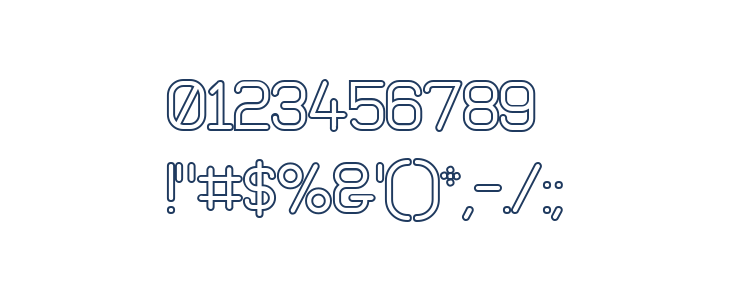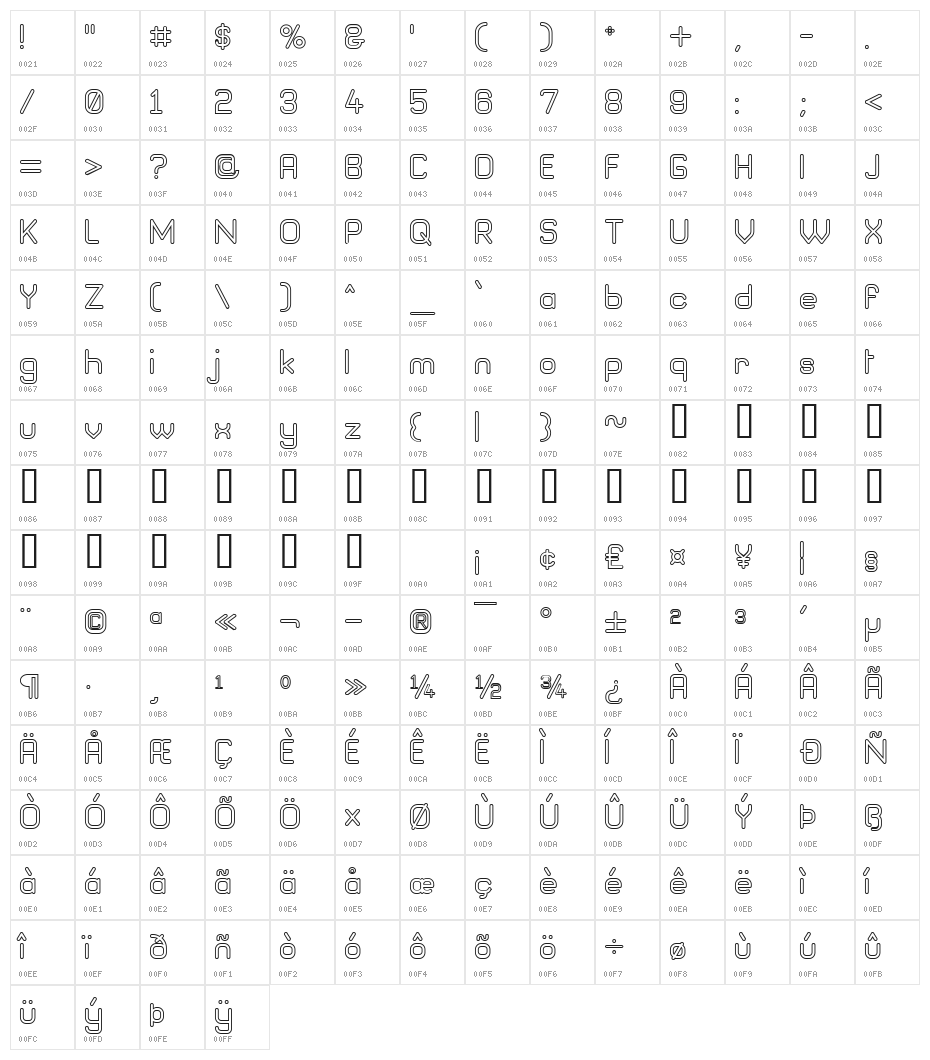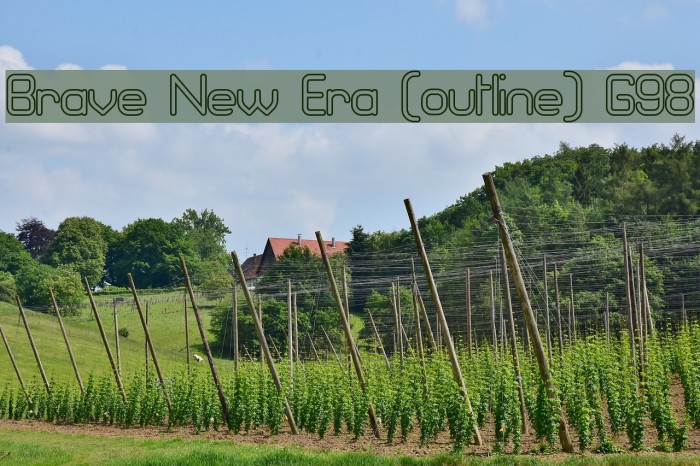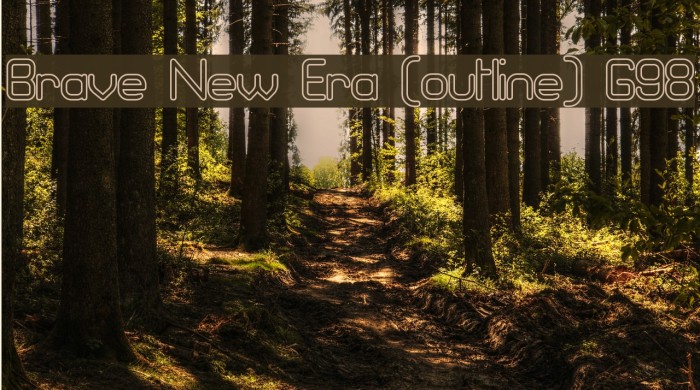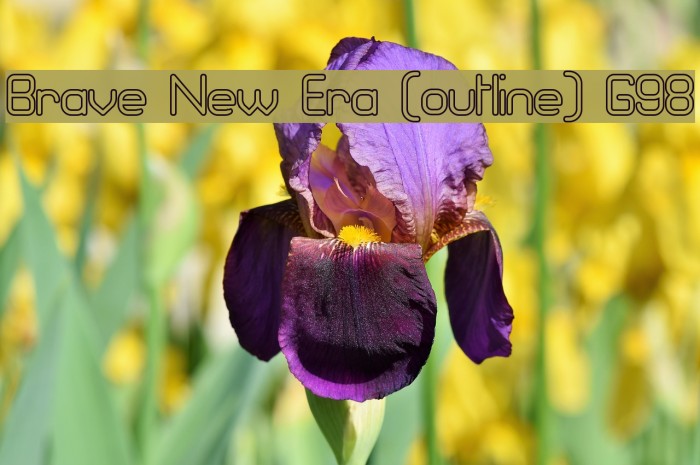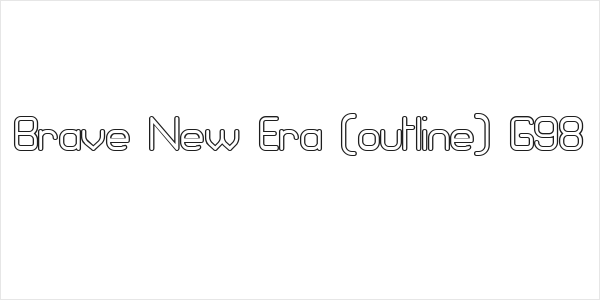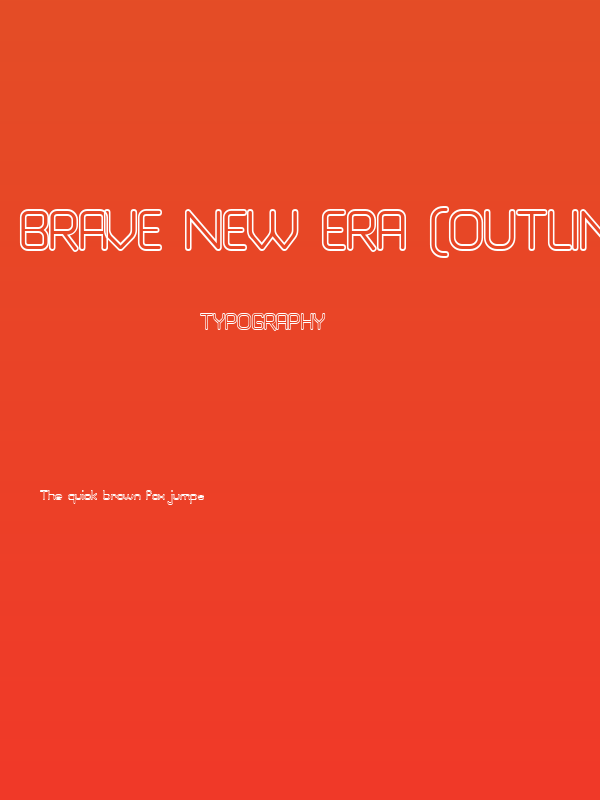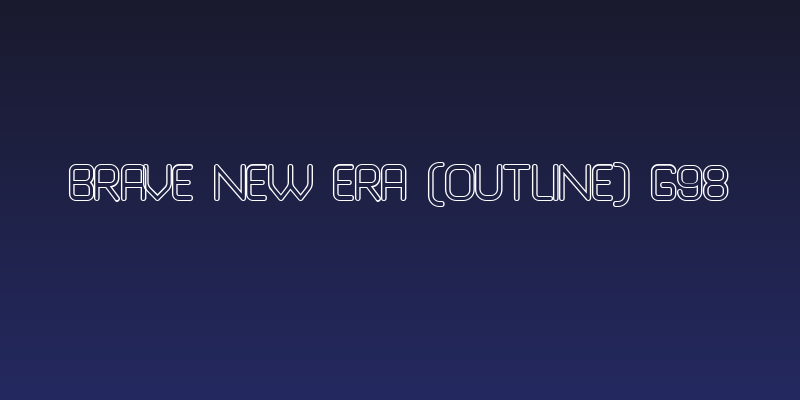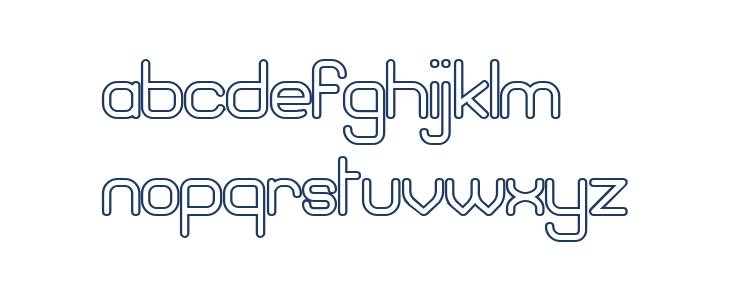
Brave New Era [outline] G98 Font
Brave New Era [outline] G98 Description
This font features a modern, geometric outline style with clean and precise lines. Each character is crafted with a consistent stroke width, creating a harmonious and balanced appearance. The uppercase and lowercase letters maintain a uniform height, contributing to a cohesive look. The numerals and special characters are designed to match the overall aesthetic, ensuring versatility across different uses. The font's open structure and clear legibility make it suitable for various design applications, from digital interfaces to print media.
| Proposed Projects | Ideal for futuristic designs, tech branding, digital interfaces, and modern posters. |